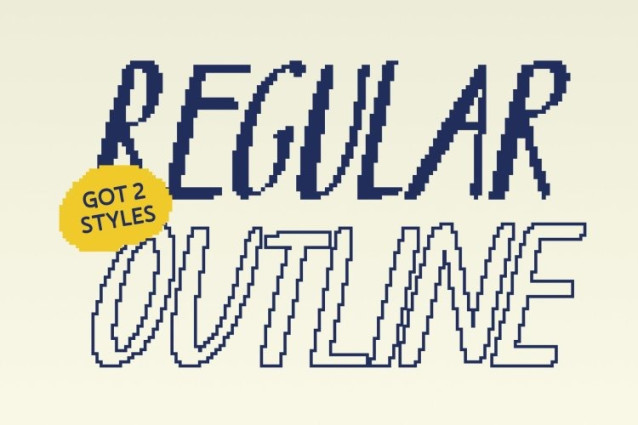
CS Cormac Pixel Font This is a marker-style sans serif font defined by its long, slim proportions and effortless flow, enhanced by a subtle pixel-based structure. Each stroke carries a handwritten sensibility, while digital precision keeps the overall form clean and balanced. The result is a font that feels natural, personal, and distinctly modern.
Handwritten Pixel Texture for Authentic Warmth
A refined pixel texture runs through every character, adding depth, rhythm, and organic movement. These intentional imperfections echo real marker strokes while remaining controlled and legible, creating a handcrafted charm that feels warm, expressive, and contemporary perfect for digital-first design.
Balanced Between Polished Structure and Creative Expression
This font bridges structure and spontaneity with ease. Professional enough for branding and editorial use, yet fluid and expressive for creative layouts, its slender design enhances readability while maintaining a unique artistic voice shaped by pixel detail.
Perfect for Editorial, Branding, and Modern Digital Design
Ideal for editorials, branding systems, social media graphics, and digital projects, this font brings a modern, human touch to clean typography. It’s a font designed for creators who want expressive handwritten character refined by subtle digital precision.